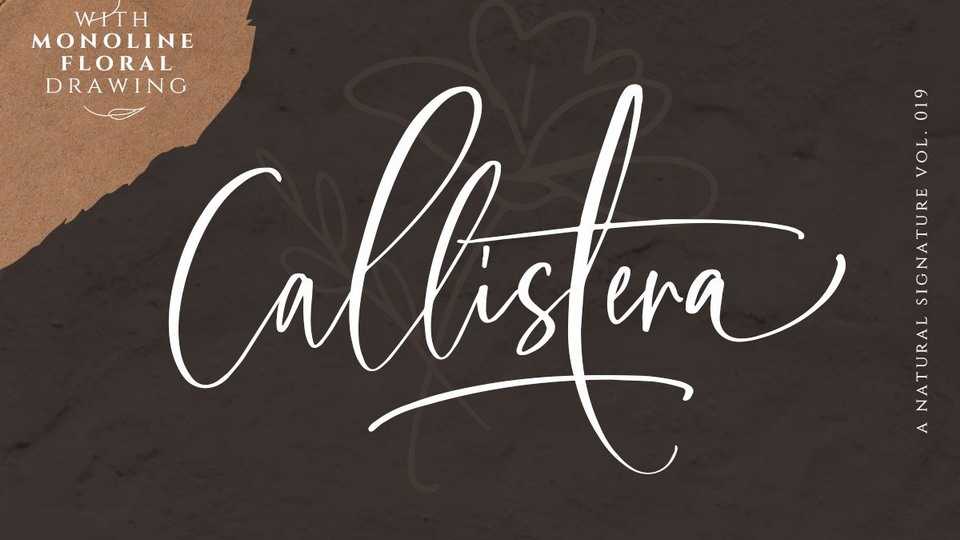
Download Callistera Script font, a natural also expressive signature typeface. Callistera Script suitable for logo branding, beautiful fashion design, suitable for wedding invitation, or handwritten quote.